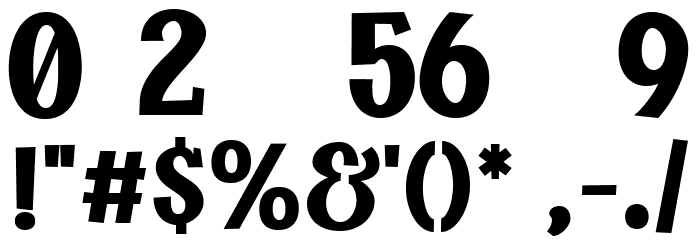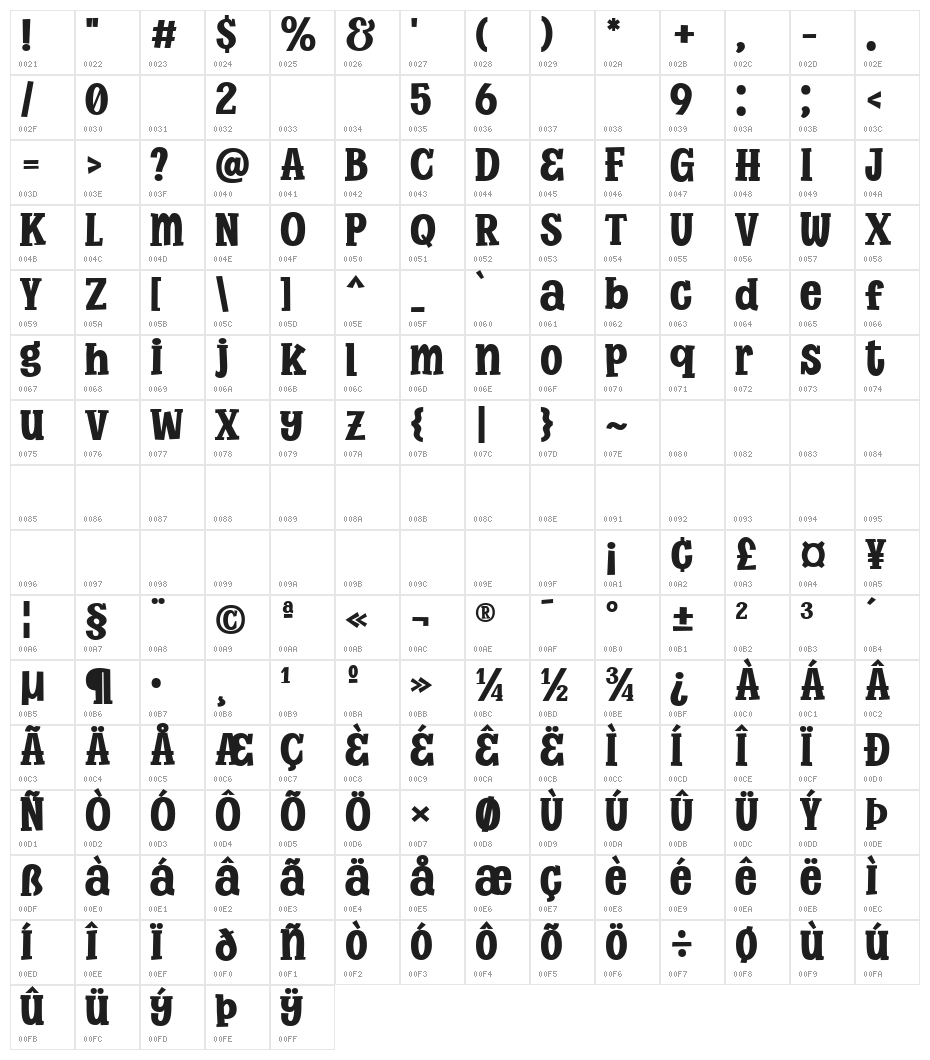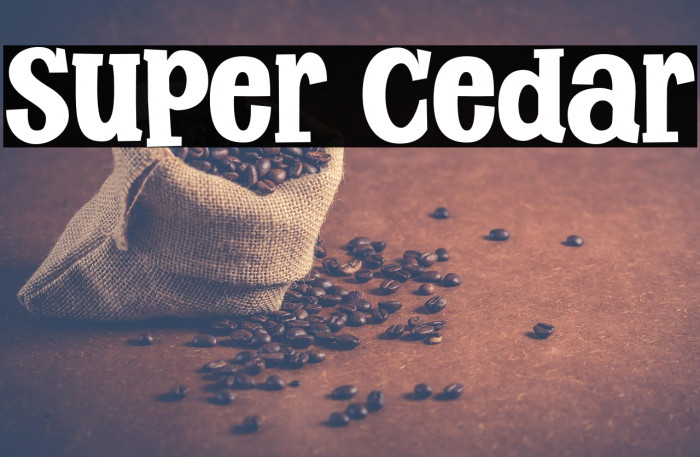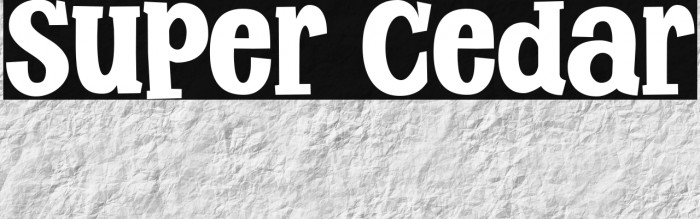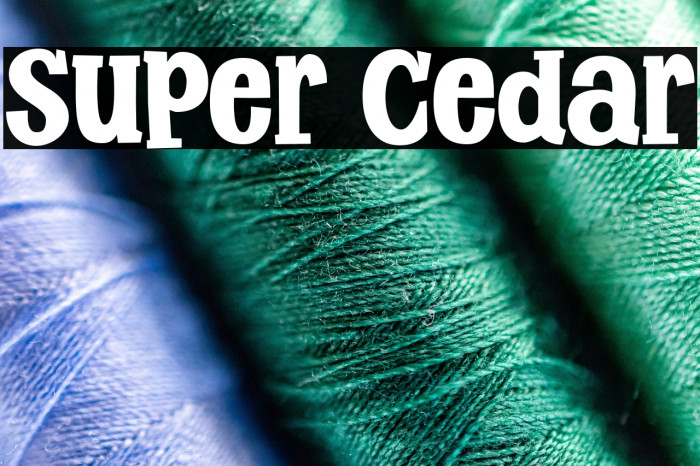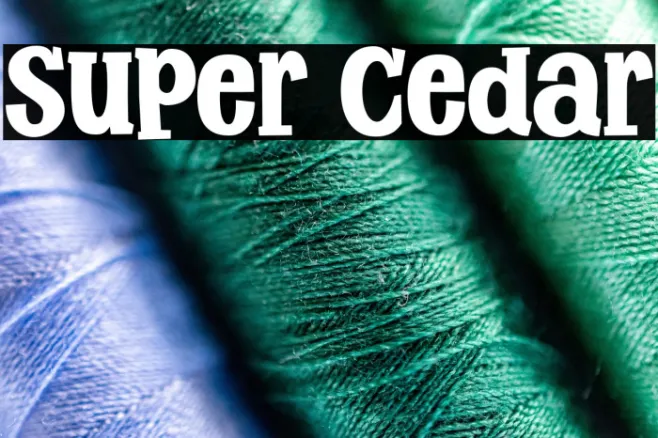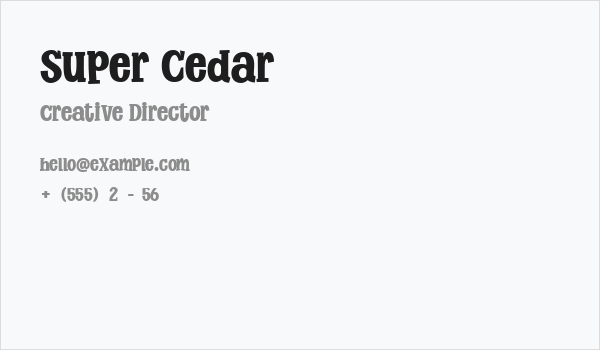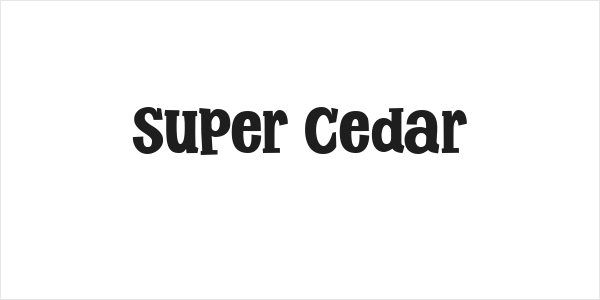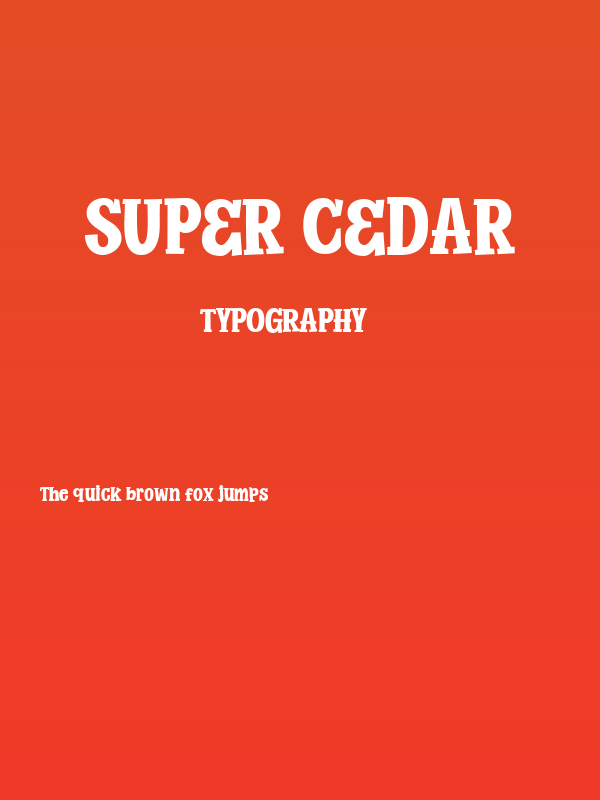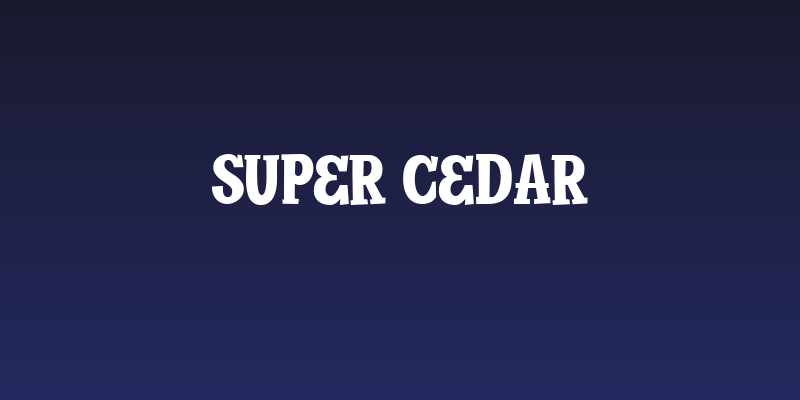
Super Cedar Font
Super Cedar Description
This font features a bold and playful design with a strong presence. The letters are characterized by thick, rounded serifs and a slightly condensed form, giving them a robust and energetic appearance. The uppercase and lowercase letters maintain a consistent style, with the lowercase letters slightly more rounded. The numbers are equally bold and maintain the same playful aesthetic. Special characters are designed to match the overall style, ensuring a cohesive look across all text elements. This font's unique style makes it stand out, making it ideal for attention-grabbing designs.
| Proposed Projects | Ideal for posters, headlines, branding, and any design requiring a bold, playful touch. |